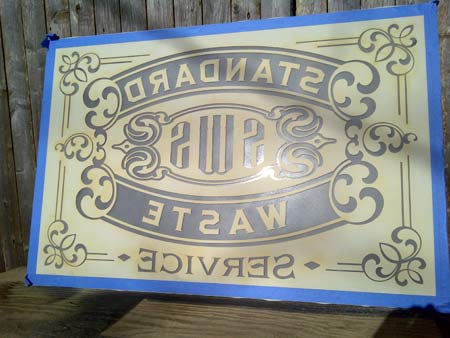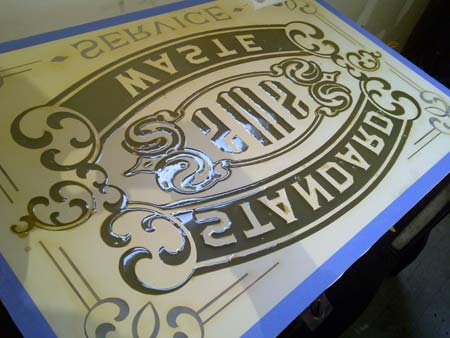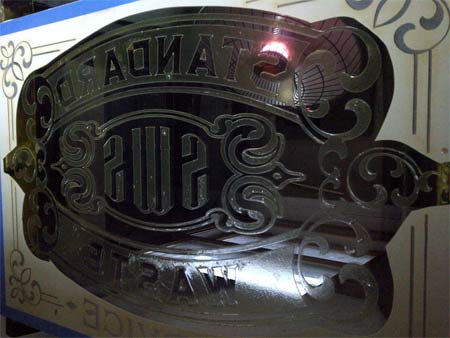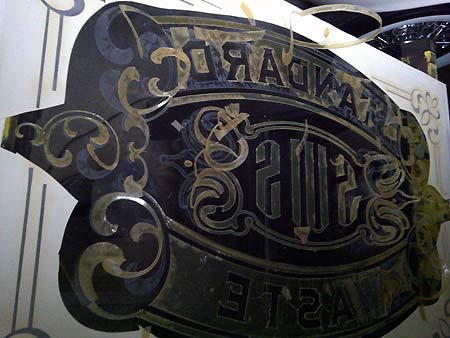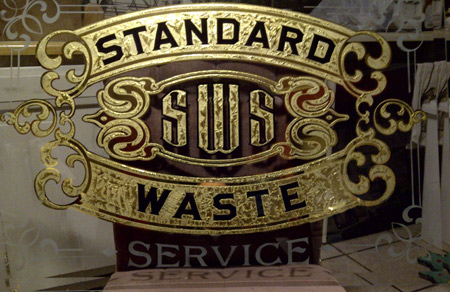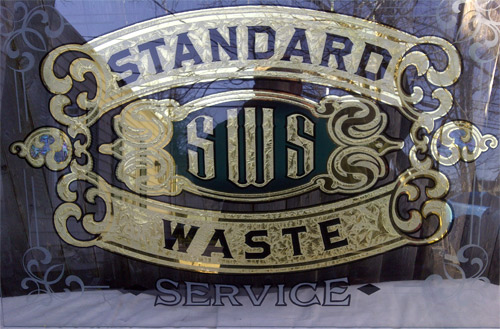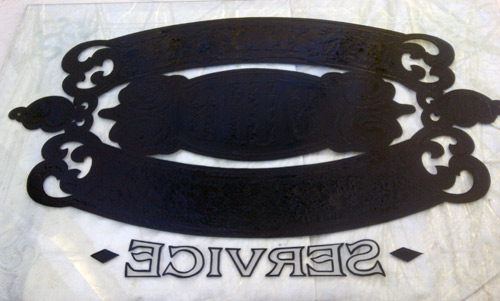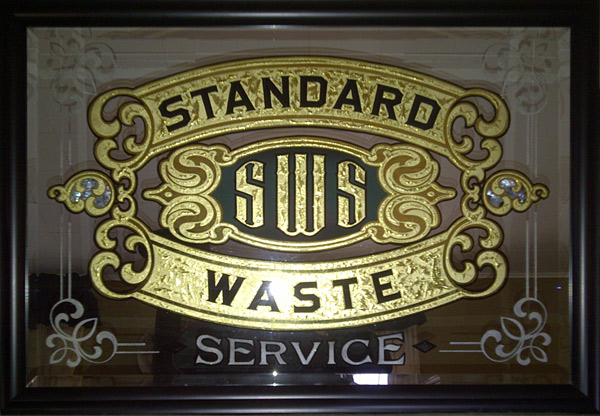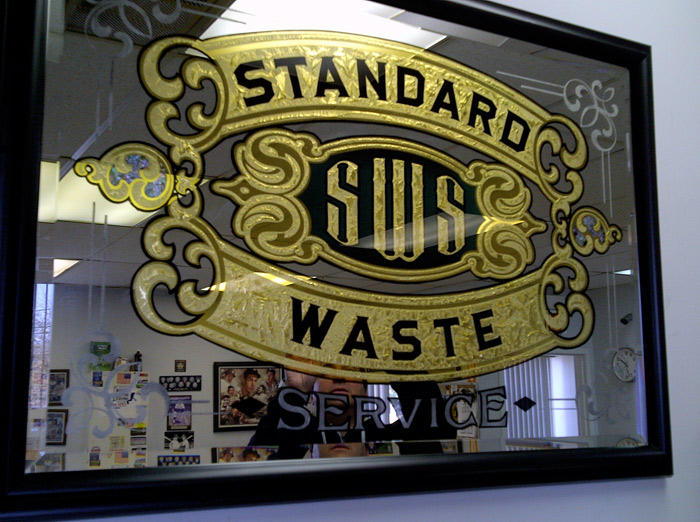
Glue Chipping Project
Just wanted to share a few photos of a glue chip project I'm in the middle of.
The glass is 24" x 36". FWIW I double cut the design by hand.
Is the chipping complete or are there spots left unchipped?
Its plinkin' away at the moment, should be finished by tomorrow morning at the rate its goin.
I did upload the photos in the wrong order, so the 1st photo you see is the last photo I shot when it started chipping.
It finished chipping yesterday, I gilded it today.....still have more to do on it.
Gonna mirror it next week if all goes according to plan.
That looks like a very good chip.
Have you read this post of mine?
I made some test with gold and silver and learned a good lesson: between gold and silver a dark colored (black is allways good) outline will pop out the design more.
Let me know what you think.
Firstly, nice design! I like that symetrical layout. Looking good!
Me. I woulda silvered it first. I would be fairly paranoid in
submercing the gilded area under all that water.
Having said that, Rick Glawson told me when silvering over any
previously done inscription, to outline the design in asphaltum,
then block in the whole area within the outline with asphaltum.
Essentially encapsulating the whole inscription with asphaltum.
The asphaltum repells the water and the silver will deposit right
up to the edge.
Outlining the gold with asphaltum will also give you the black
outline Erik mentions.
Thanks for the spare change, it adds up! Thanks for the input also....i think ill give the asphaltum ashot. Never had a problem before though....maybe i was just lucky! I might put some shell in it too. Ill post more when i get a chance to work on it again. Im in nyc gilding a job on the upper east side as im writing this. Just wanted to say thanks brothers! Gotta get back to work!
I had a couple of hours to work on this today. I took the well given advice and outlined everything with black. Thanks for all of the input and coments! I really appreciate it! The black outline really made it pop. I used gilders backup black with 1shot hardener. I also put some abalone in the 2 outside flourishes and sprayed a green and black gradient in the center panel. I backed up the shell with backup black and then sealed the edges real good with asphaltum. I think I'm going to leave 'service' like it is with just a black outline, I was going to gild it but had 2nd thoughts about it.
I thought you were going to silver this piece?
If so remember that the one shot hardener will react with the silver and turn it into brown.
Thanks guys for the nice feedback! Means a lot! I'm Actually pretty much pleased with the way it came out. There's always something that could have been handled differenty, done better or tweeked out more! This was a commisioned job and is hanging in their office. In a couple of weeks I'm starting a small mirror for an english pub in nyc. Its still in the layout stage but ill post some photos as I make progress on it. Thanks for all the comments and input! This is a great forum!